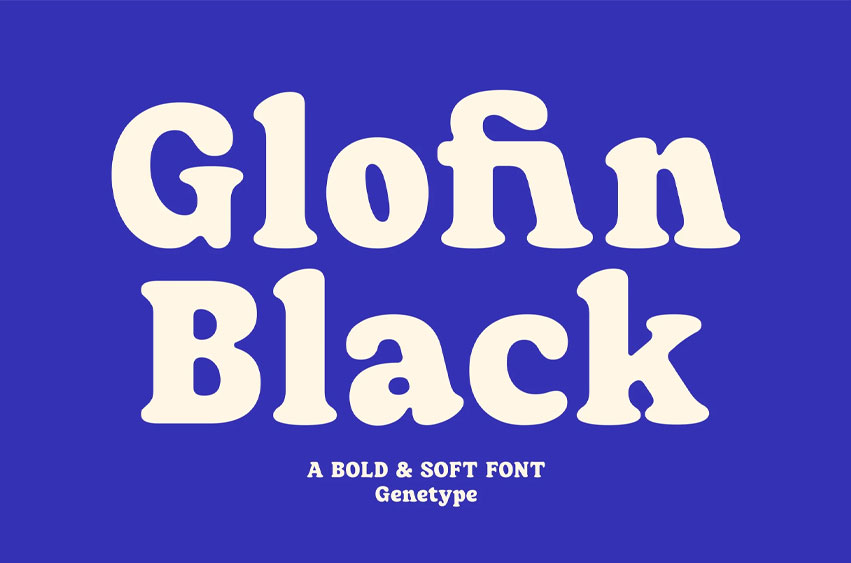
Glofin Black Font
Glofin Black Font Bold Retro Soft Font | Playful Rounded Display Typeface. Glofin Black is a bold and soft retro display font with a playful and friendly character. Its chubby letterforms and smooth curves create a fun, approachable feel that works perfectly for modern branding, packaging, and advertising projects. Inspired by vintage signage and mid-century type, Glofin Black combines nostalgic charm with a clean, contemporary look.
Perfect for logos, posters, food and beverage packaging, children’s products, and social media graphics, this typeface delivers a warm and happy visual energy that grabs attention instantly.
Glofin Black includes uppercase and lowercase letters, numbers, punctuation, and multilingual support. Its thick yet soft shapes make it ideal for both display use and branding that needs to feel bold but friendly.